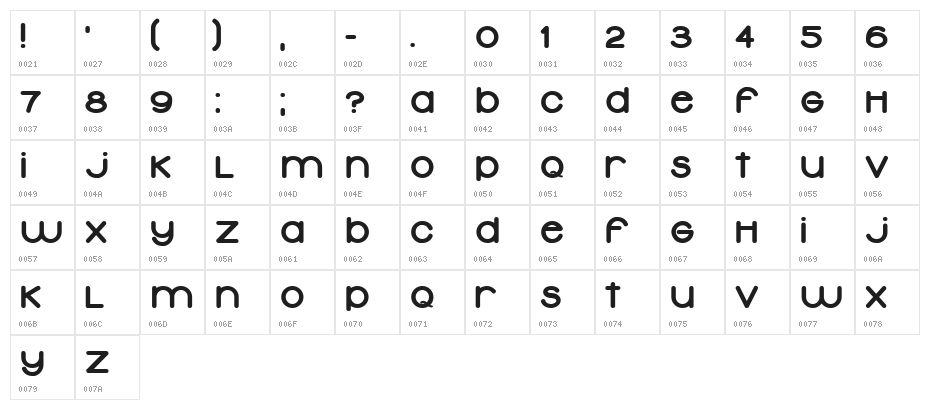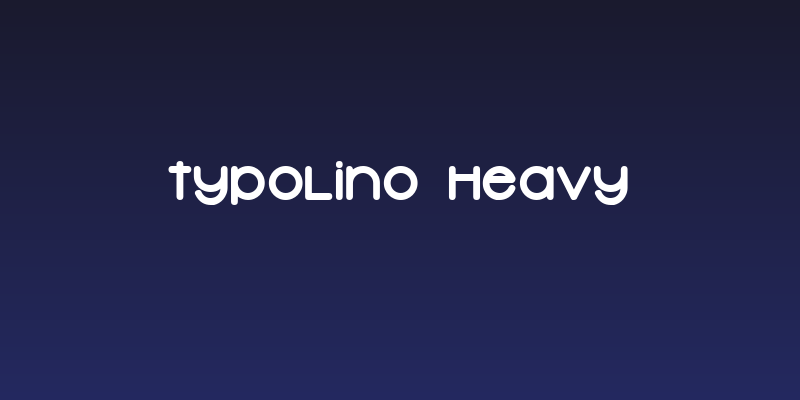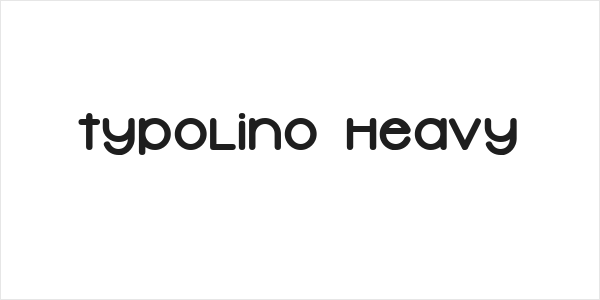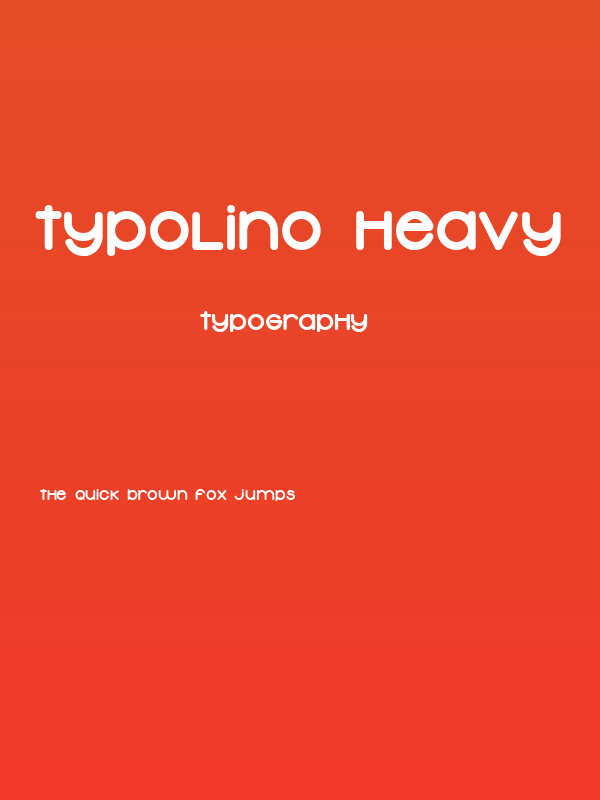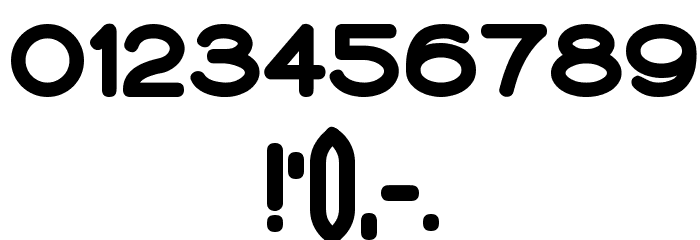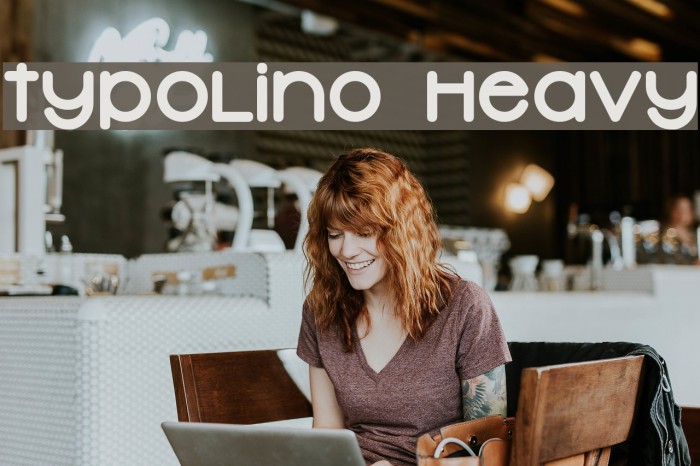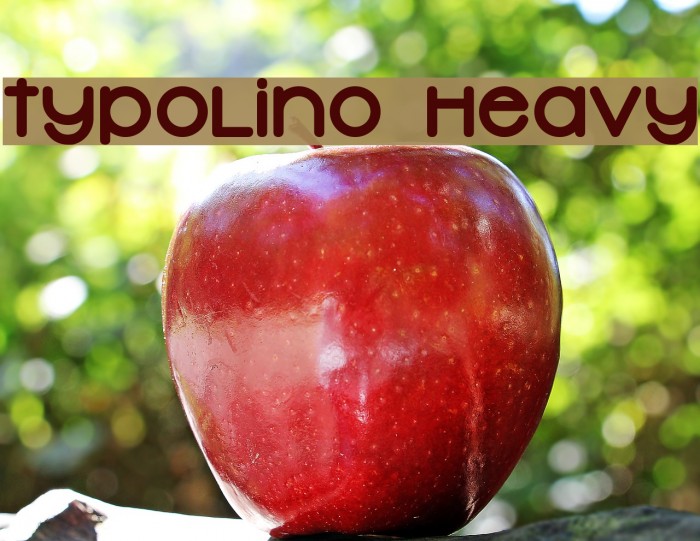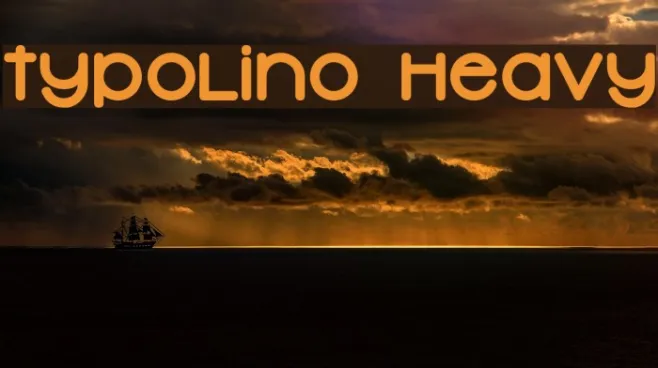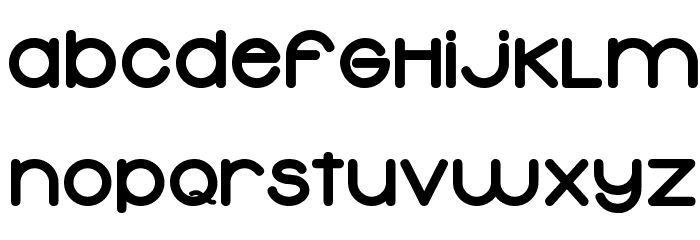
Typolino Heavy Font
Typolino Heavy Description
This font features a bold, rounded design with a playful and modern aesthetic. The characters are uniformly thick, giving a strong presence while maintaining a friendly and approachable feel. The rounded edges and consistent stroke weight contribute to its contemporary look. It is highly legible, making it suitable for various applications where clarity and style are essential. The numbers and special characters maintain the same rounded and bold characteristics, ensuring a cohesive appearance across all text elements.
| Proposed Projects | Ideal for children's books, playful branding, posters, and digital media where a friendly and modern look is desired. |